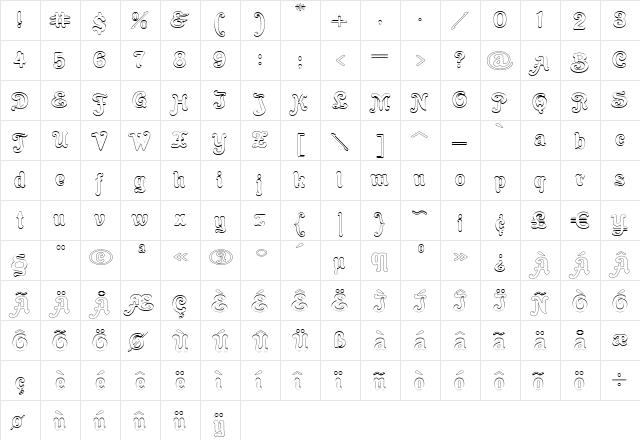
Cacao Fat Outline Regular
Design Context for Cacao Fat Outline Typeface
Cacao Fat Outline brings ornamental detail and strong personality to headlines and identities, where visual impact matters more than quiet functionality.
Font Pairing: Pair with a clean neutral sans-serif for body copy to let Cacao Fat Outline's character lead without overwhelming the composition.
Pro Tip: Use Cacao Fat Outline exclusively at display sizes — it was designed to be seen, not read at length. Let a neutral companion handle body copy.